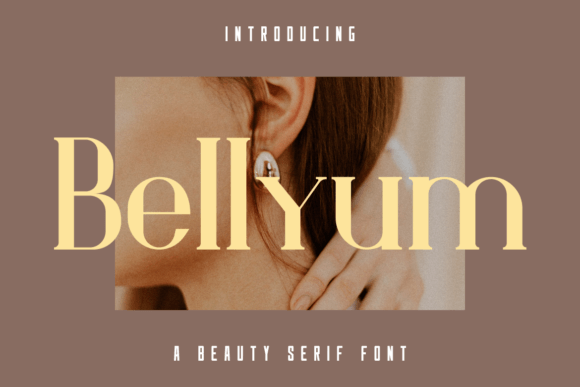
Behold Bellyum Font, a remarkable serif masterpiece that masterfully blends elegance and sharpness. Each letter is intricately crafted, meticulously designed with balanced proportions and impeccable alignment. Experience the allure of this typographic gem, perfect for print design, promotional materials, and magazine layouts.
Immerse yourself in the world of Bellyum Font, where sophistication meets clarity. Its crisp lines and refined curves exude an undeniable charm, captivating your audience with its timeless beauty. Whether you're creating a company logo, crafting brochures, or designing stunning headlines, Bellyum Font is your ultimate companion.
Unlock endless creative possibilities with Bellyum Font. Its versatility extends across a vast spectrum of projects, from captivating posters to impactful social media graphics. Unleash your imagination and let Bellyum Font elevate your designs to new heights.
With Bellyum Font, your message will resonate with your audience, leaving a lasting impression. Its timeless appeal transcends fleeting trends, ensuring your designs remain relevant and captivating. Embrace Bellyum Font and embark on a journey of creative excellence.